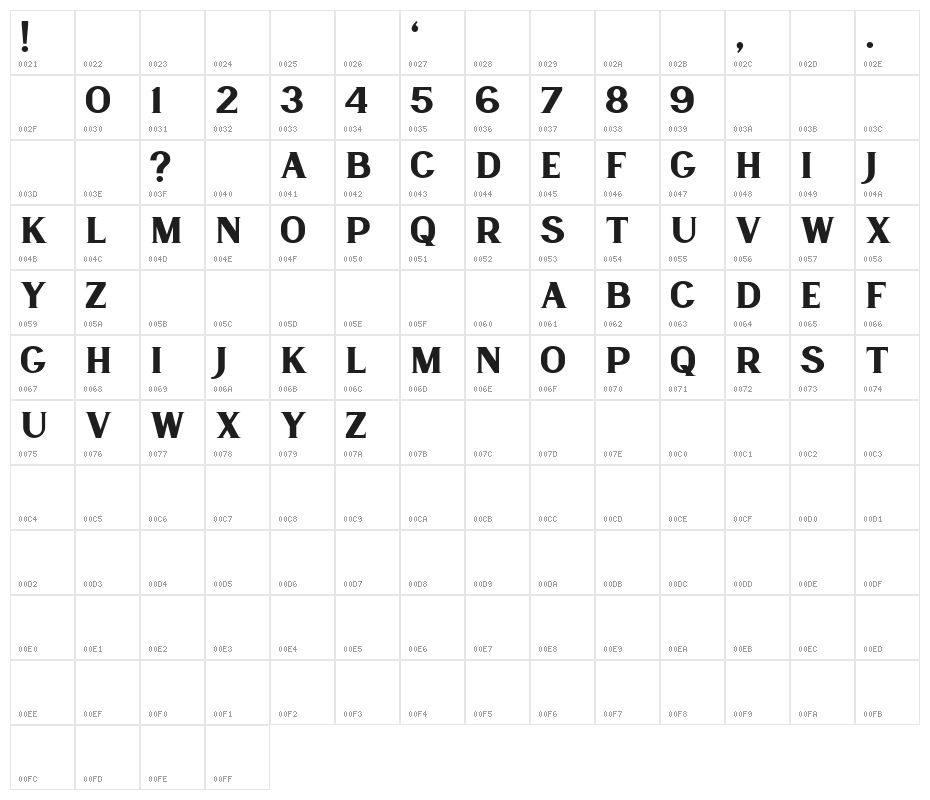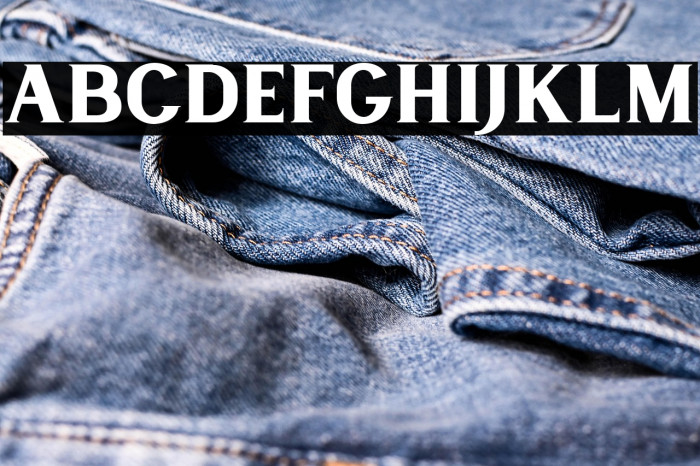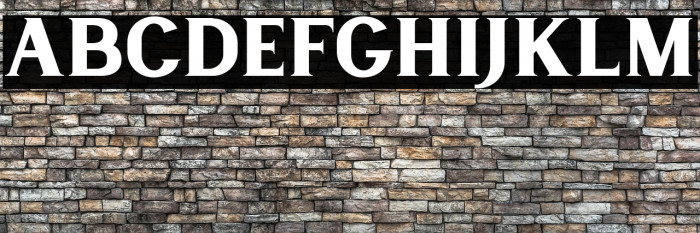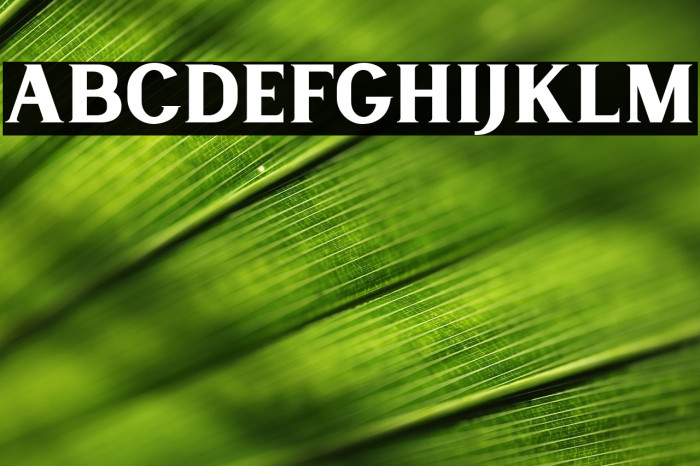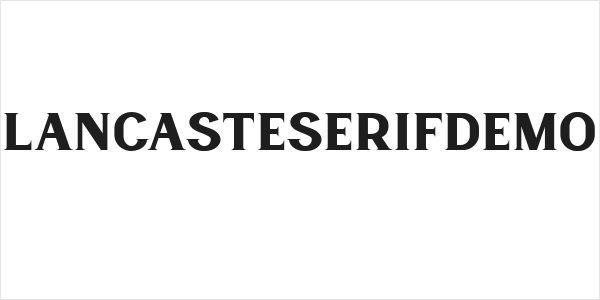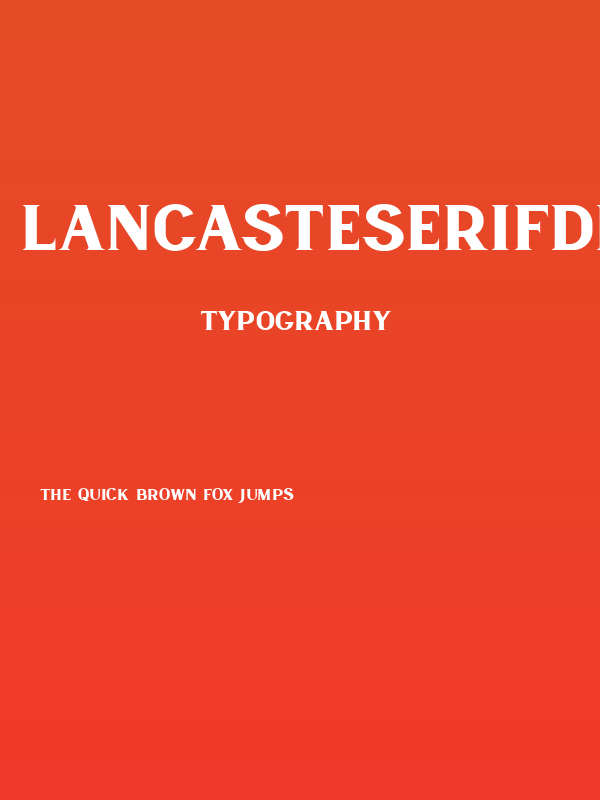
LancasteSerifDemo Font
LancasteSerifDemo Description
This font features a classic serif design with strong, bold strokes and pronounced serifs that give it a traditional and authoritative appearance. The uppercase letters are well-proportioned, with a slight contrast in stroke thickness that adds to its readability and elegance. The numerals are robust and consistent with the overall style, making them suitable for both formal and casual contexts. The special characters are distinct and maintain the font's cohesive look. This typeface is ideal for projects that require a touch of sophistication and clarity.
Overall StyleClassic
Use CaseHeadlines, Logos, Editorial design
Proposed ProjectsIdeal for book covers, editorial design, branding, and formal invitations.